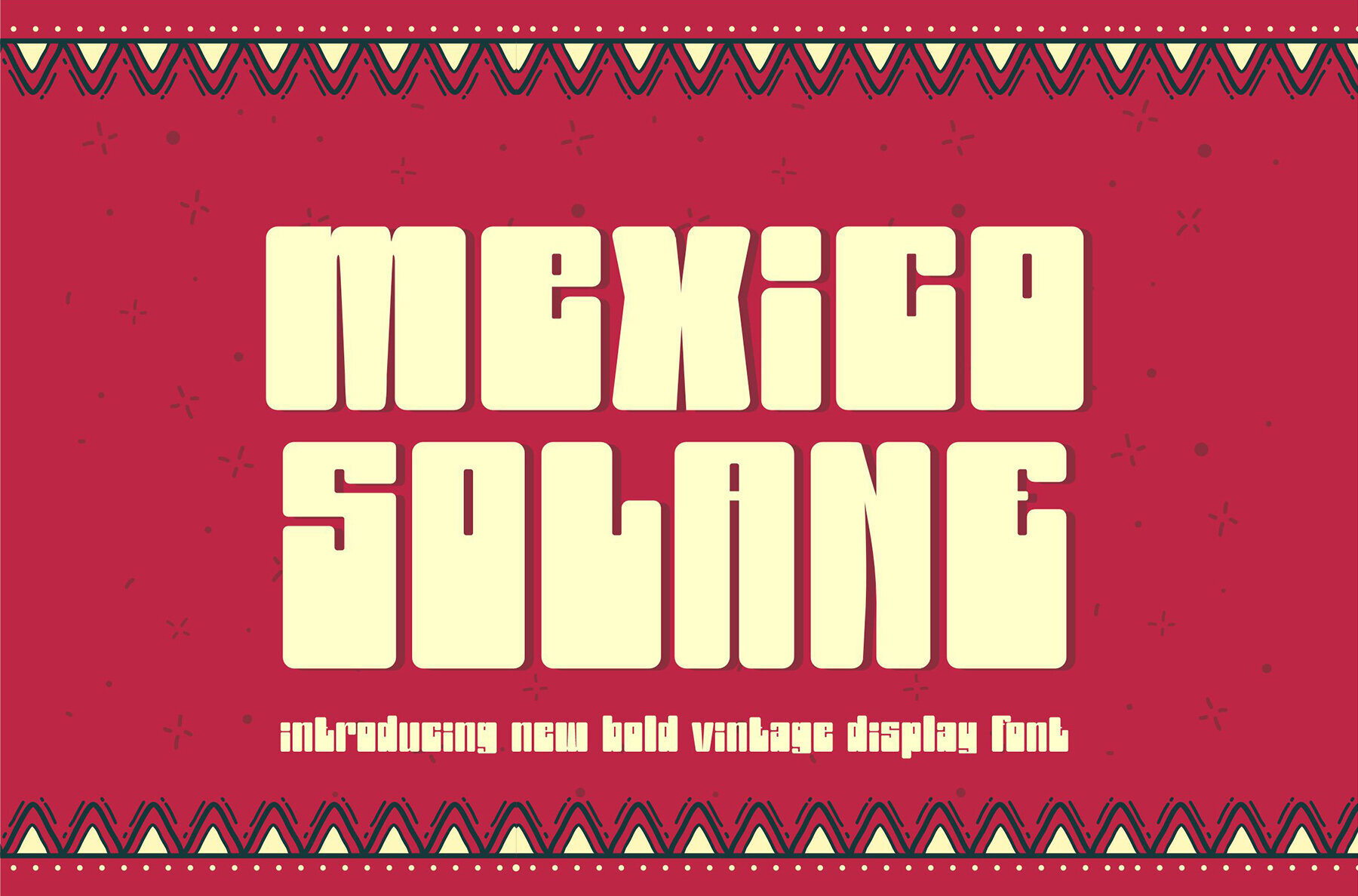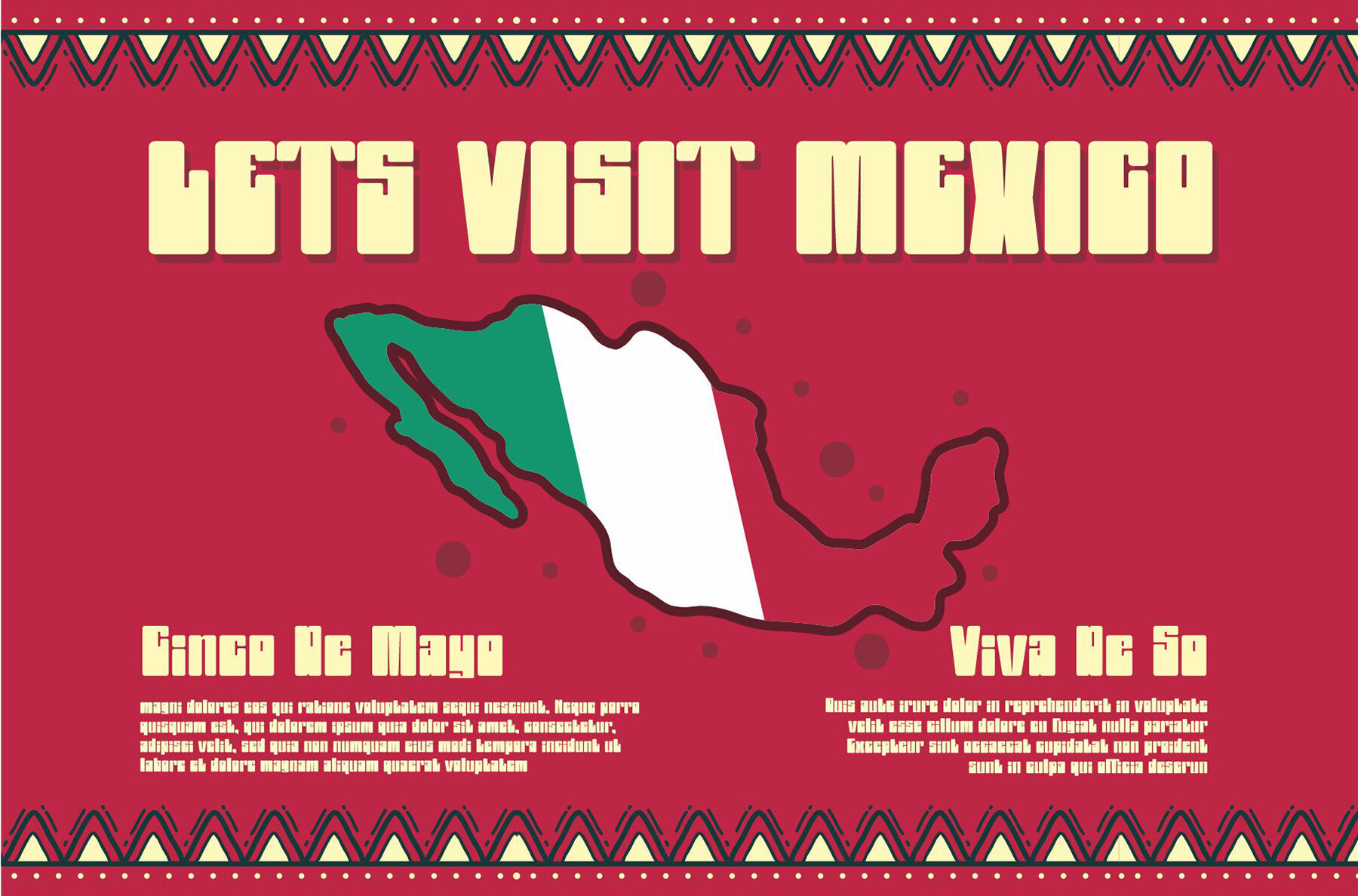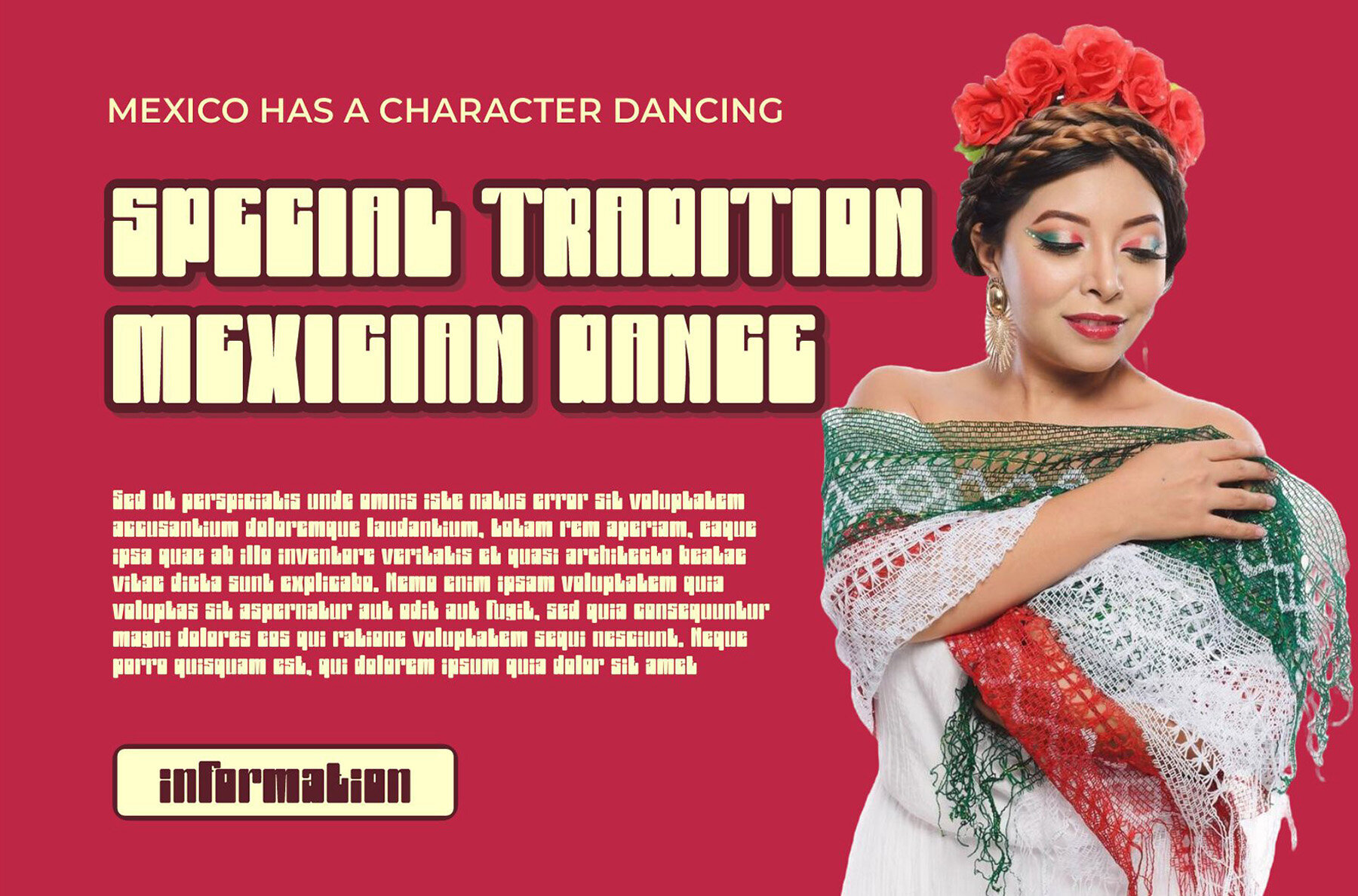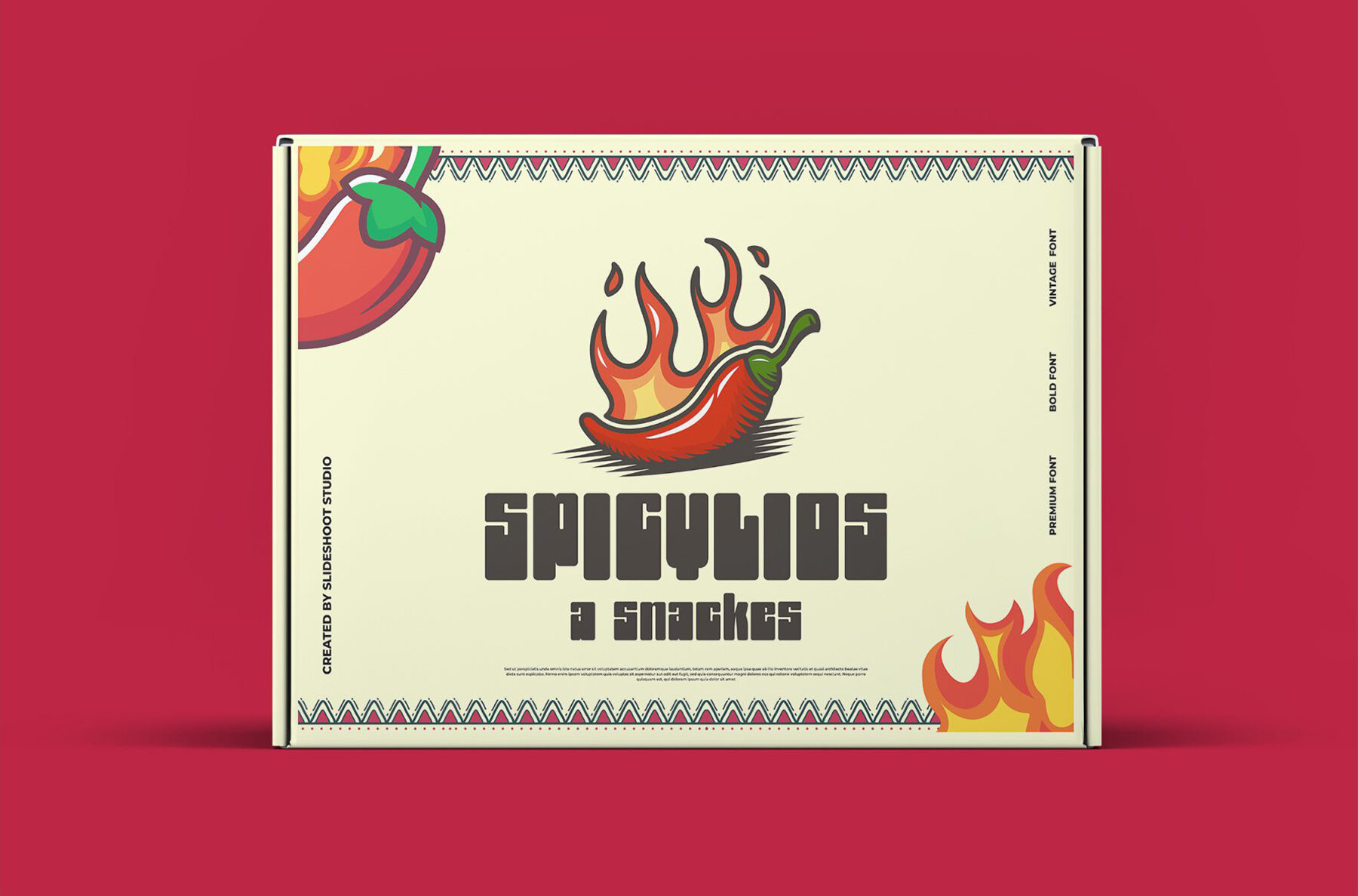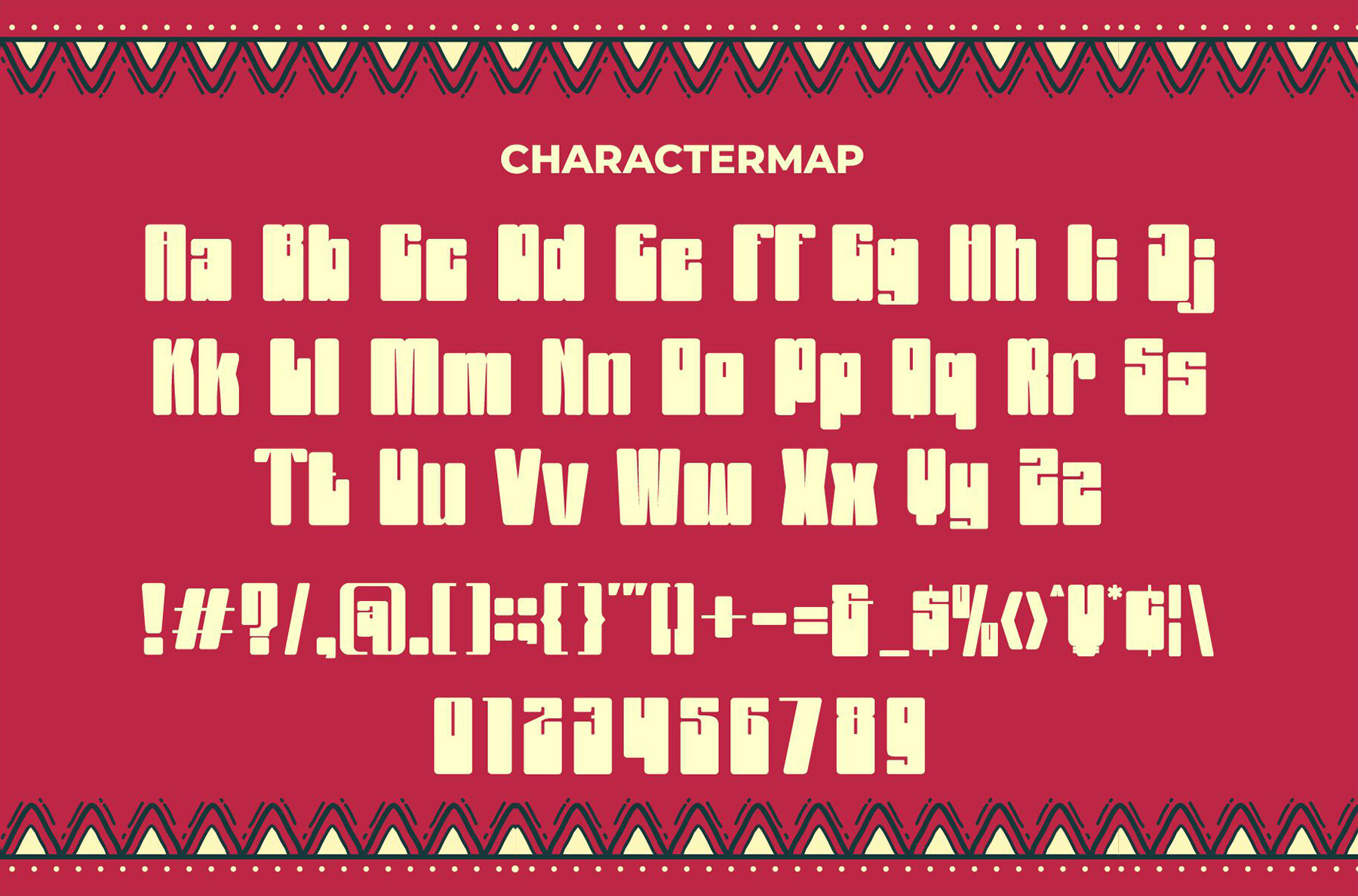
Mexico Solano Font
Mexico Solano
Mexico Solano is a bold, distinctive display font that brings a modern, trendy, and bouncy style with a charming touch. The font’s unique character is inspired by a wood theme, adding a natural and organic feel to any design. Ideal for creatives, it seamlessly pairs with invitation card designs, company logos, movie titles, business cards, book titles, brand names, and more.
Key features of Mexico Solano include ligatures, uppercase and lowercase options, as well as numbering and punctuation, ensuring versatility in various design projects. Compatible with both PC and Mac, the font allows for easy installation and supports popular design software such as Adobe Illustrator, Adobe Photoshop, Adobe InDesign, as well as Microsoft Word.